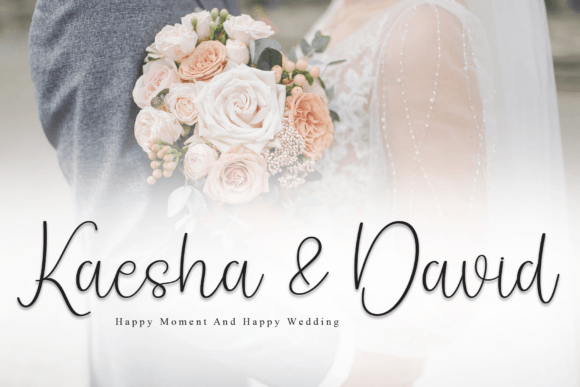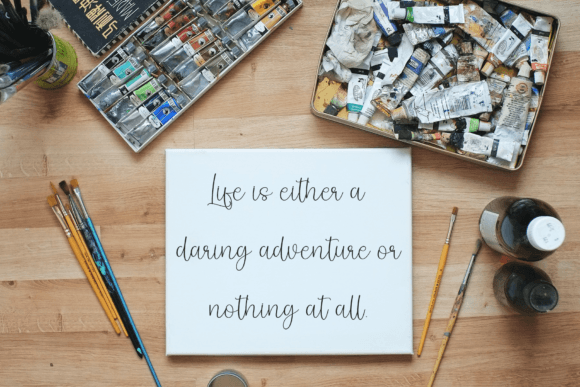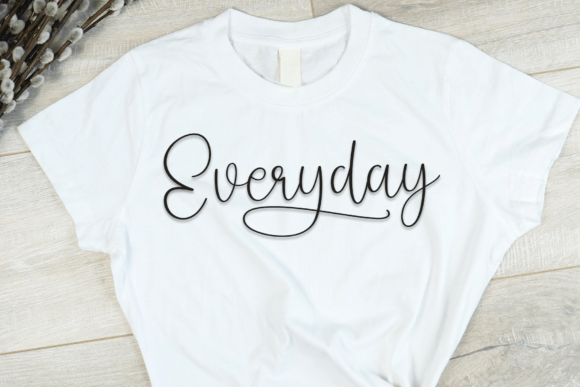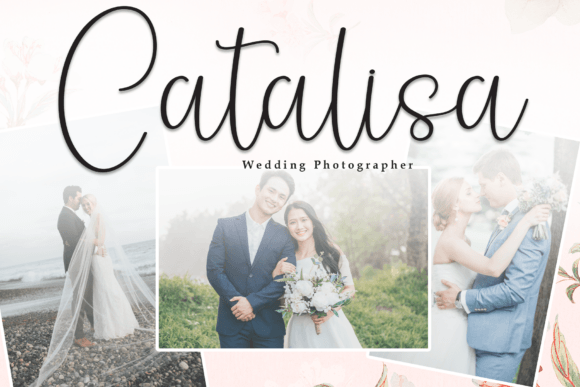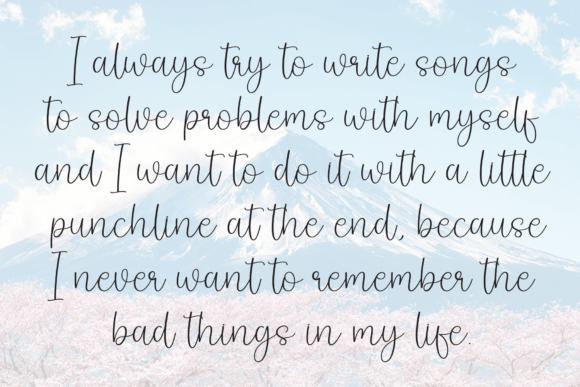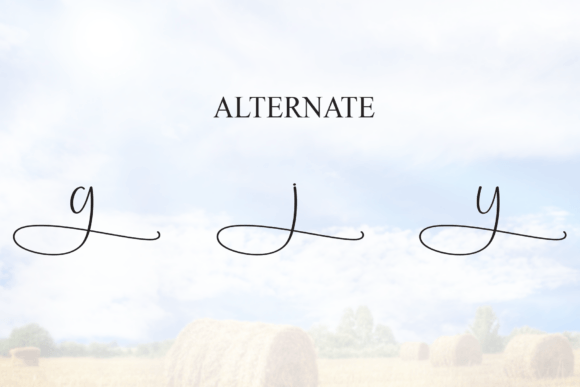
The Elegant Charm of Bright Sunday Font: A Designer’s Delight
I’ll never forget the time I was working on a wedding invitation project, and my client asked for a font that exuded elegance and sophistication. I scoured the internet, tried out countless fonts, but nothing seemed quite right. That was until I stumbled upon Bright Sunday Font. ✨ It was love at first sight! The stylish and incredibly elegant script font instantly captured the essence of what I was looking for. In this article, I’ll share my experience with Bright Sunday Font, its features, and how to make the most of it in your designs.
An Honest Review of Bright Sunday Font
• ✨ Elegant and sophisticated script style, perfect for wedding invitations, thank you cards, and quotes.
• ✅ Highly versatile, suitable for various design projects, including logos, business cards, and greeting cards.
• 💫 Beautifully crafted with attention to detail, giving it a premium feel.
While Bright Sunday Font is an excellent choice, there are a few things to keep in mind:
• ⚠️ As a script font, it may not be the best choice for body text or long paragraphs, as it can be challenging to read.
• 🤔 Some users may find the font a bit too ornate for certain design projects, such as minimalist or modern designs.
The Backstory of Bright Sunday Font
Bright Sunday Font was designed with the intention of creating a elegant and sophisticated script font that would add a touch of luxury to any design project. The designer drew inspiration from classic calligraphy and handwriting styles, with a focus on creating a font that was both beautiful and legible.
What is Bright Sunday Font best used for? Bright Sunday Font is best used for designs that require a touch of elegance and sophistication, such as wedding invitations, thank you cards, quotes, and logos.
Is Bright Sunday Font suitable for body text? No, Bright Sunday Font is not suitable for body text, as it can be challenging to read in long paragraphs.